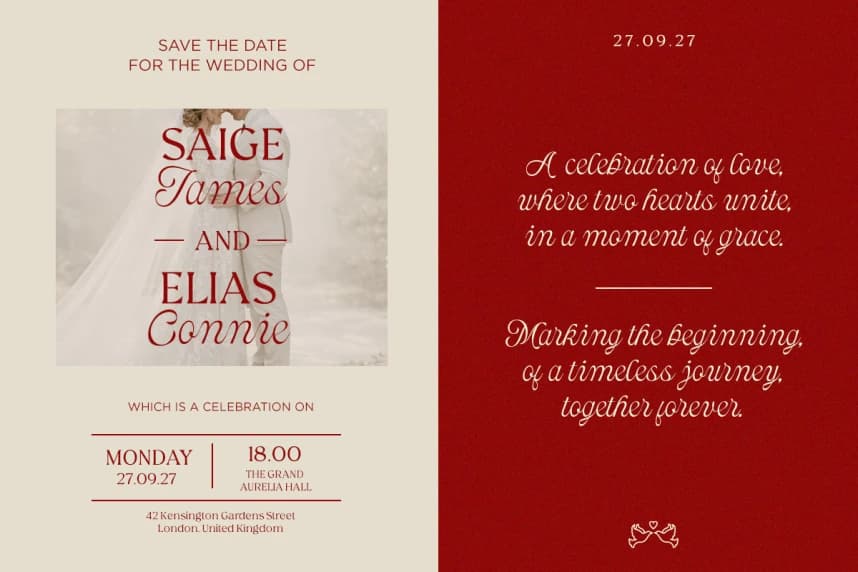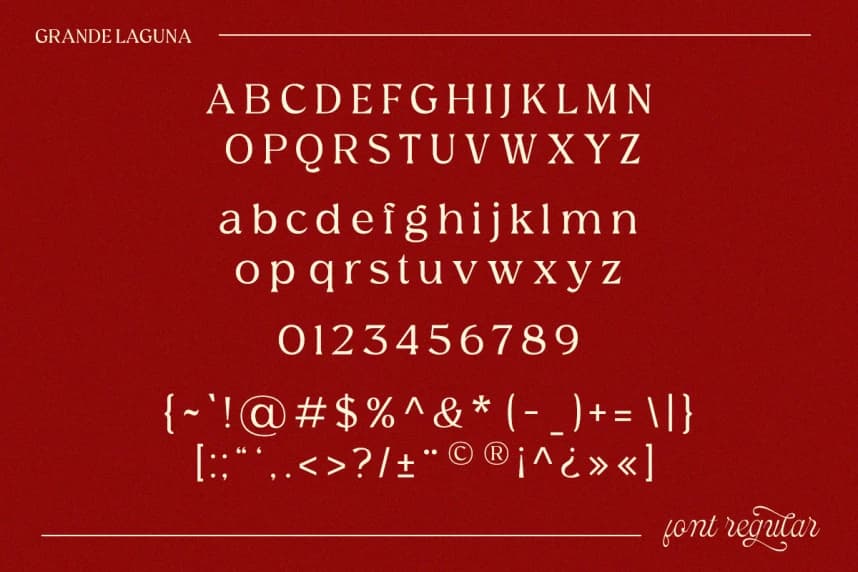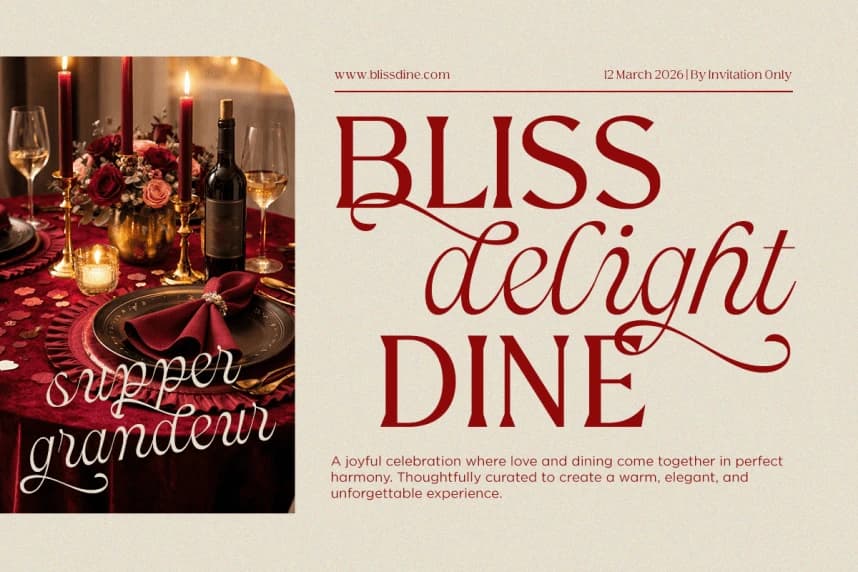
Grande Laguna Font
Grande Laguna Font is an elegant font duo that beautifully blends a refined serif with a graceful script. Designed to create harmony between structure and fluidity, it delivers a luxurious and timeless aesthetic that instantly elevates any design.